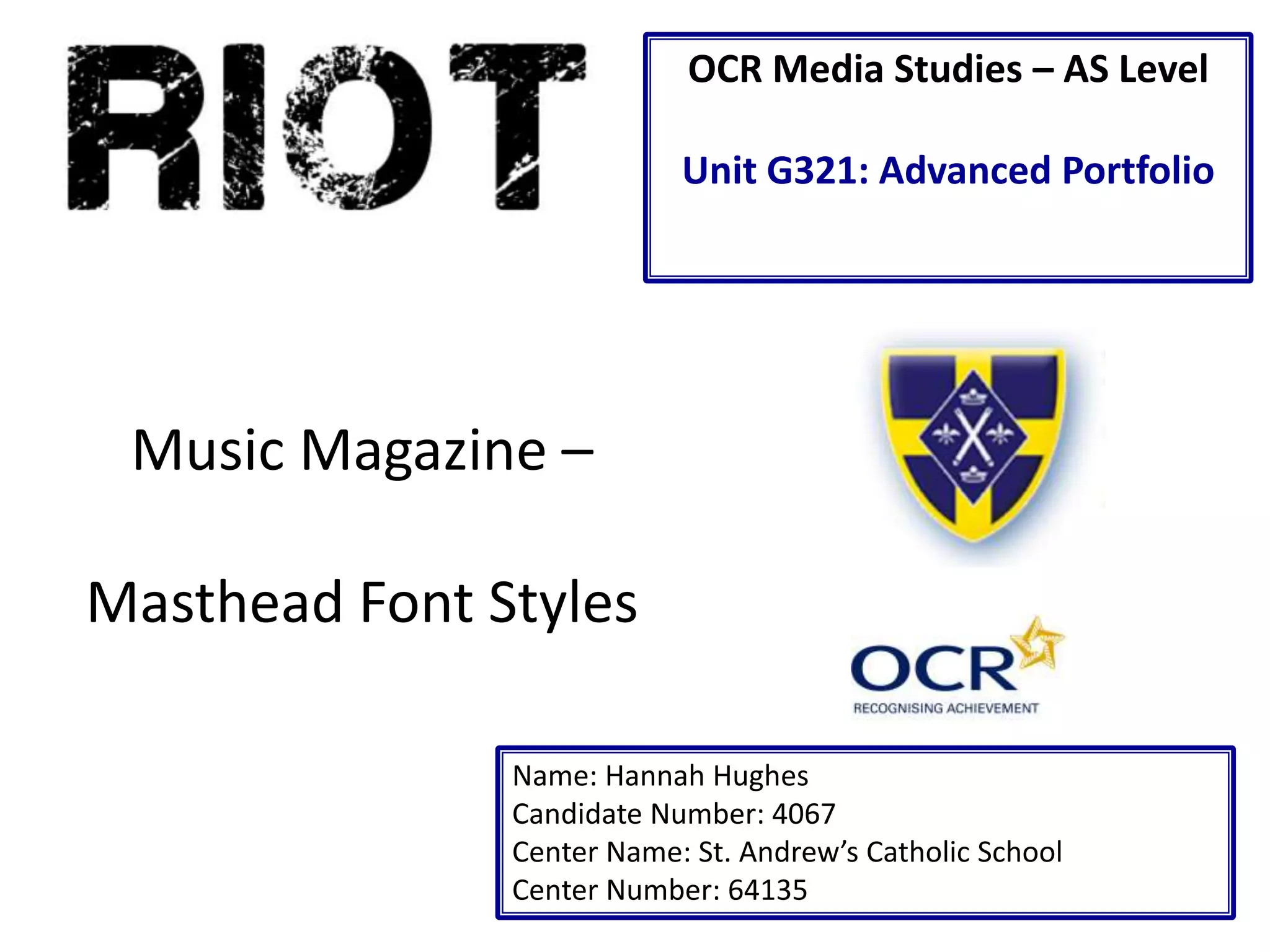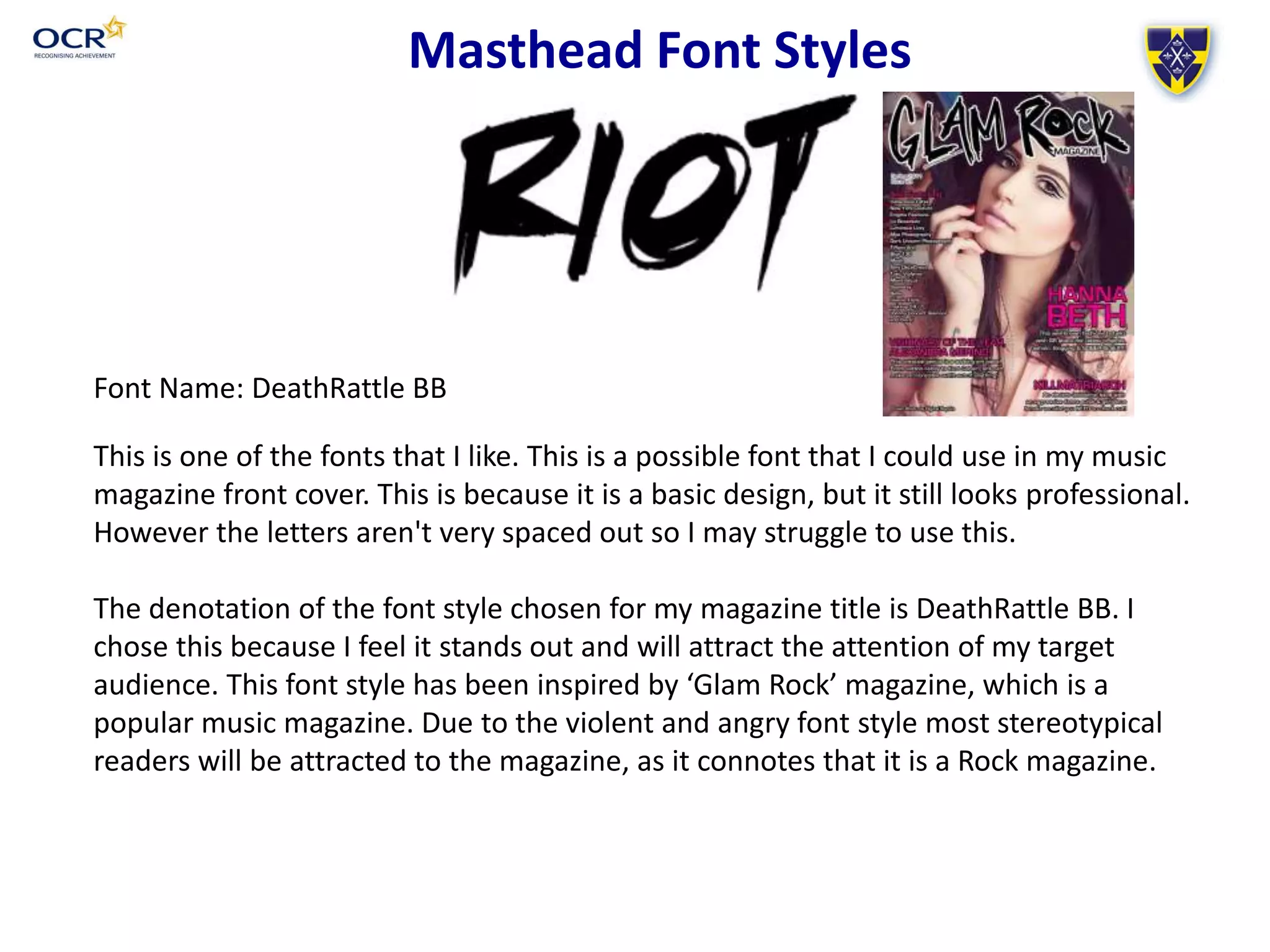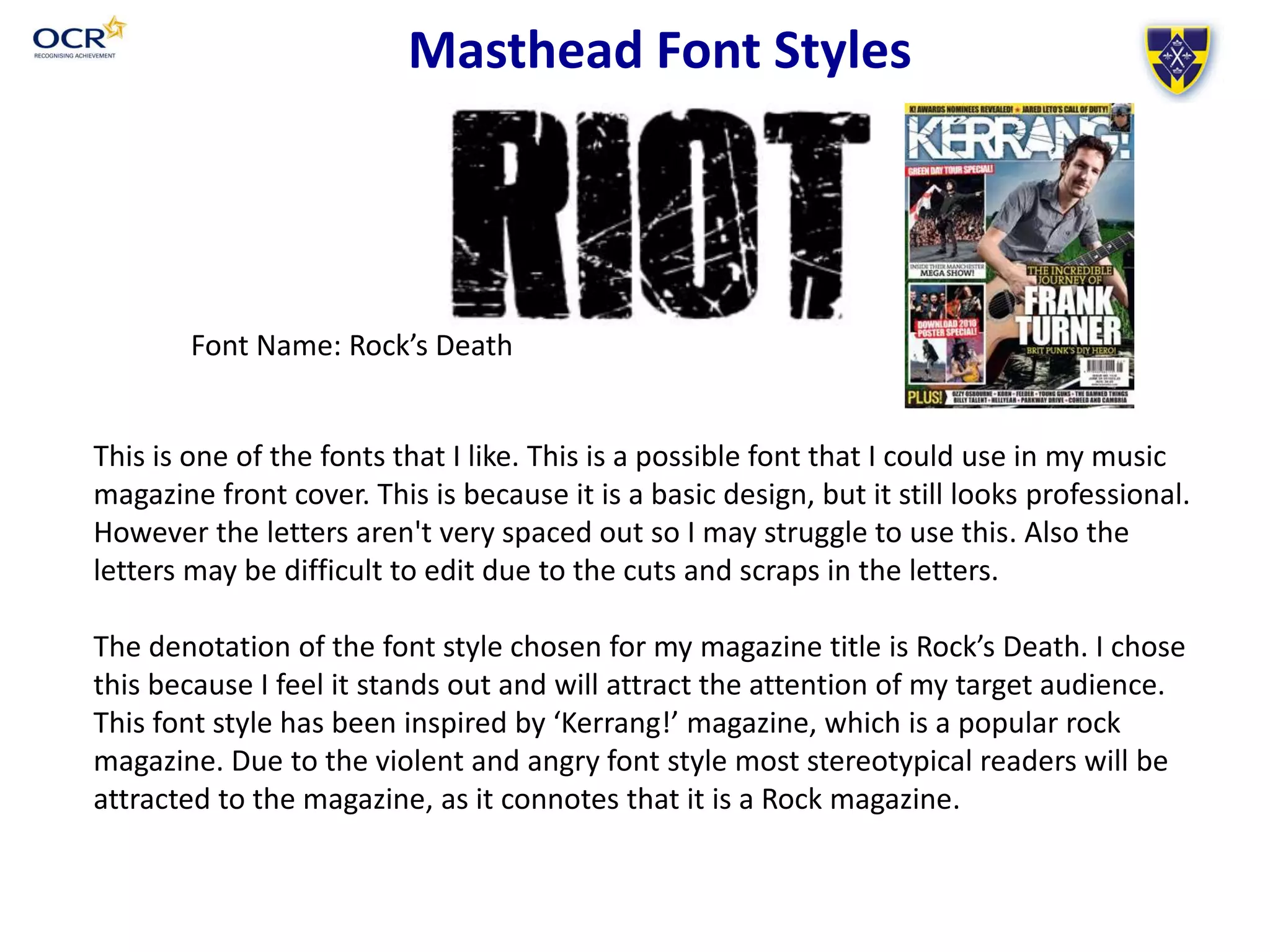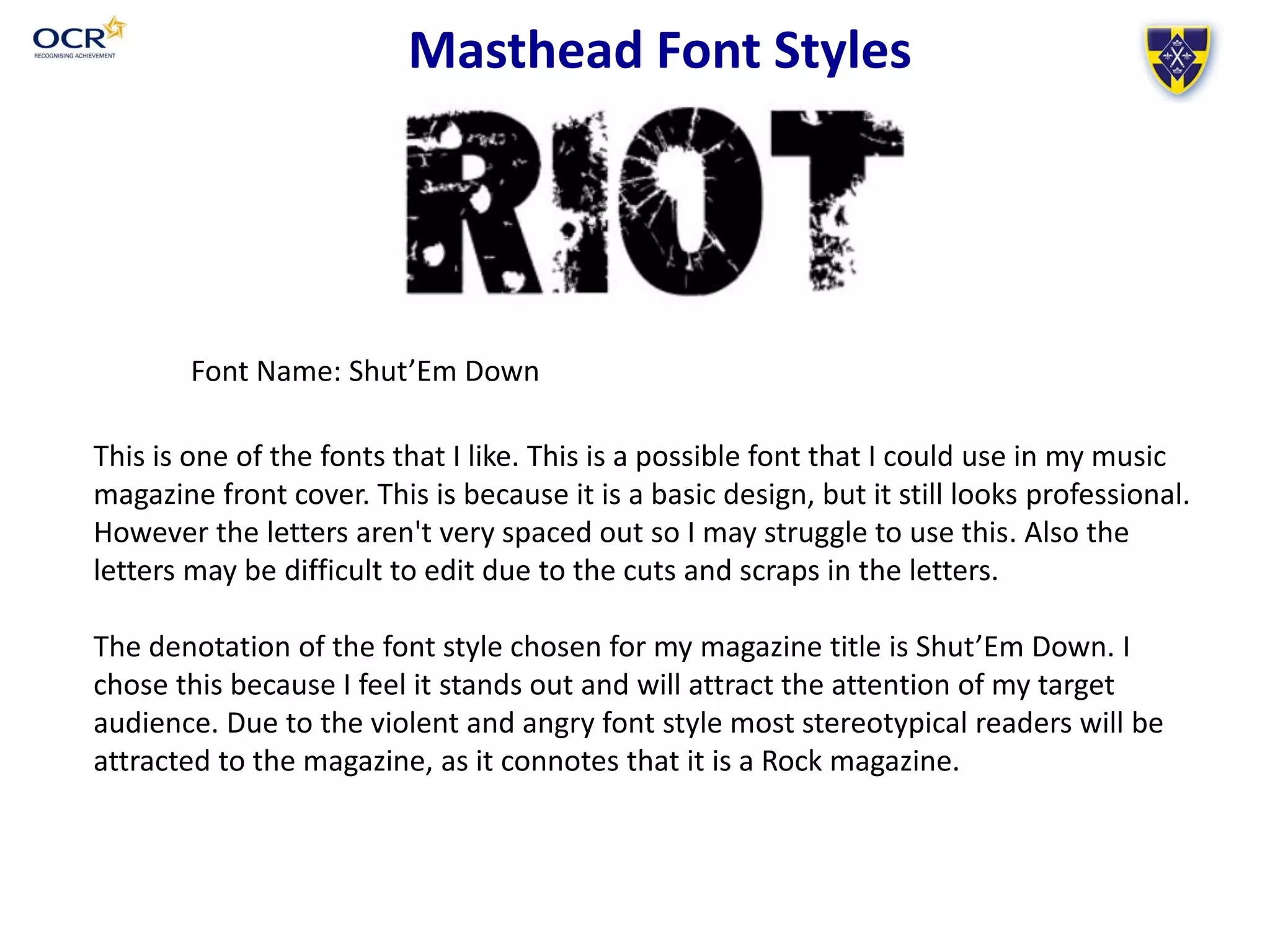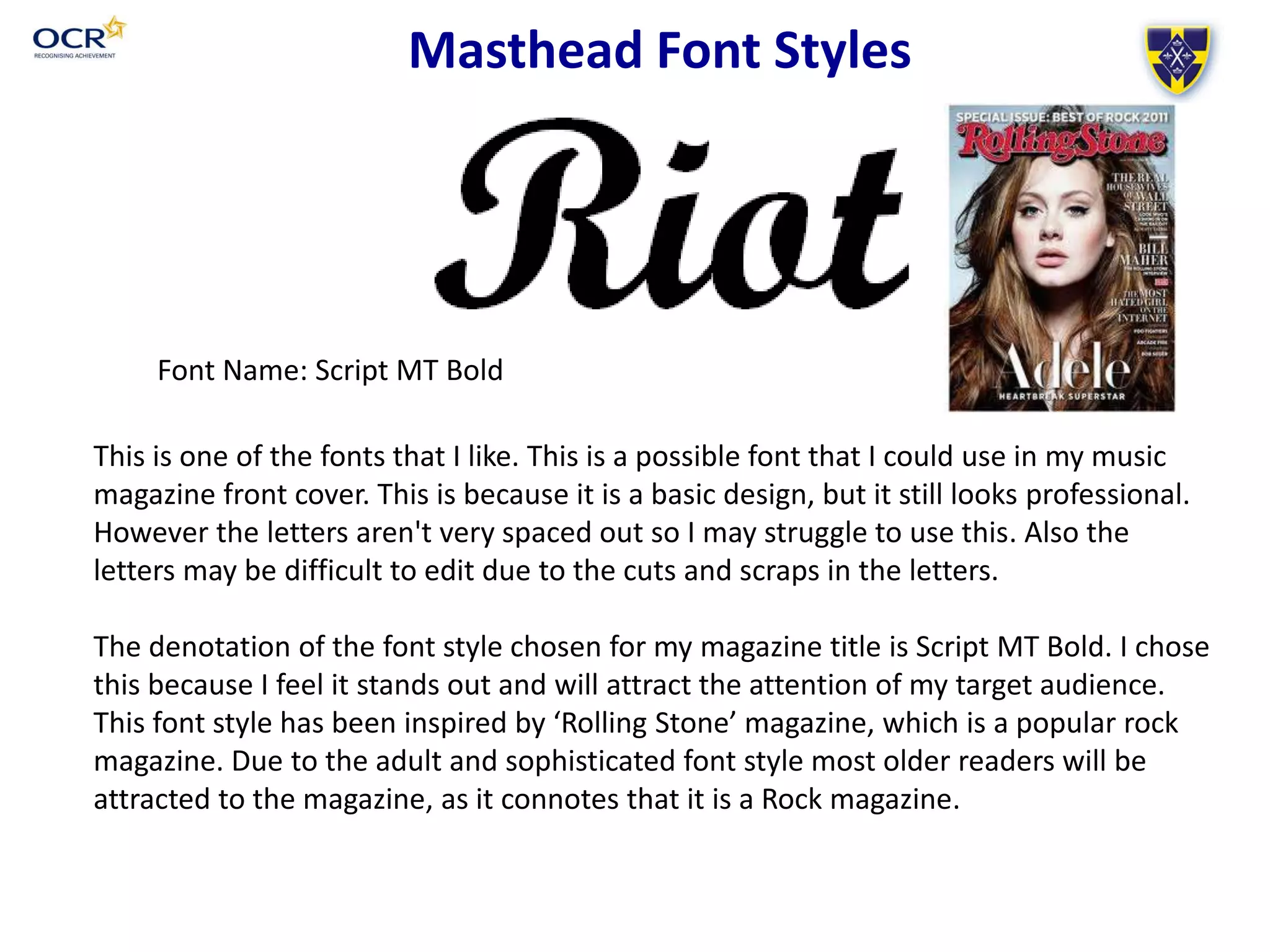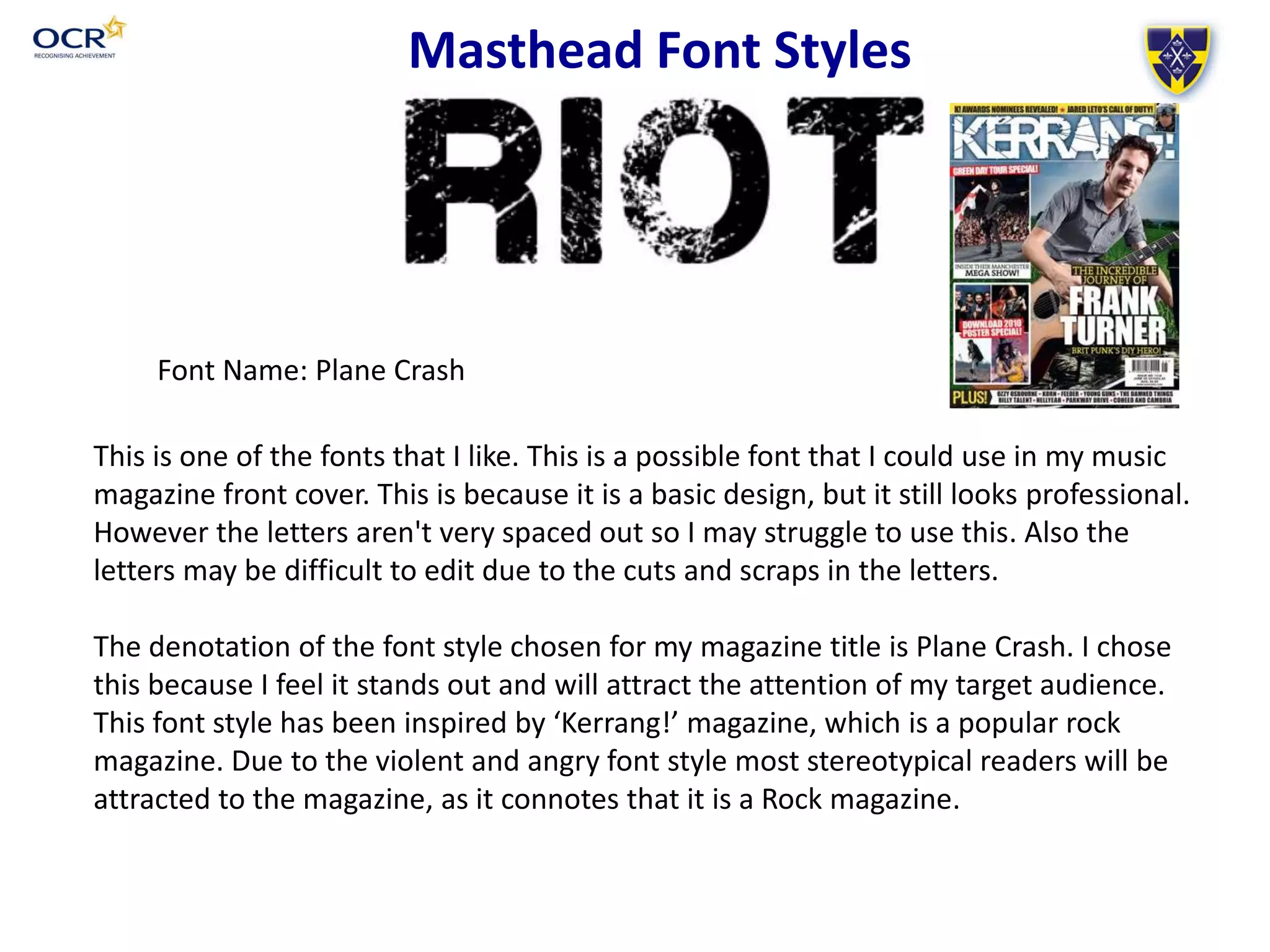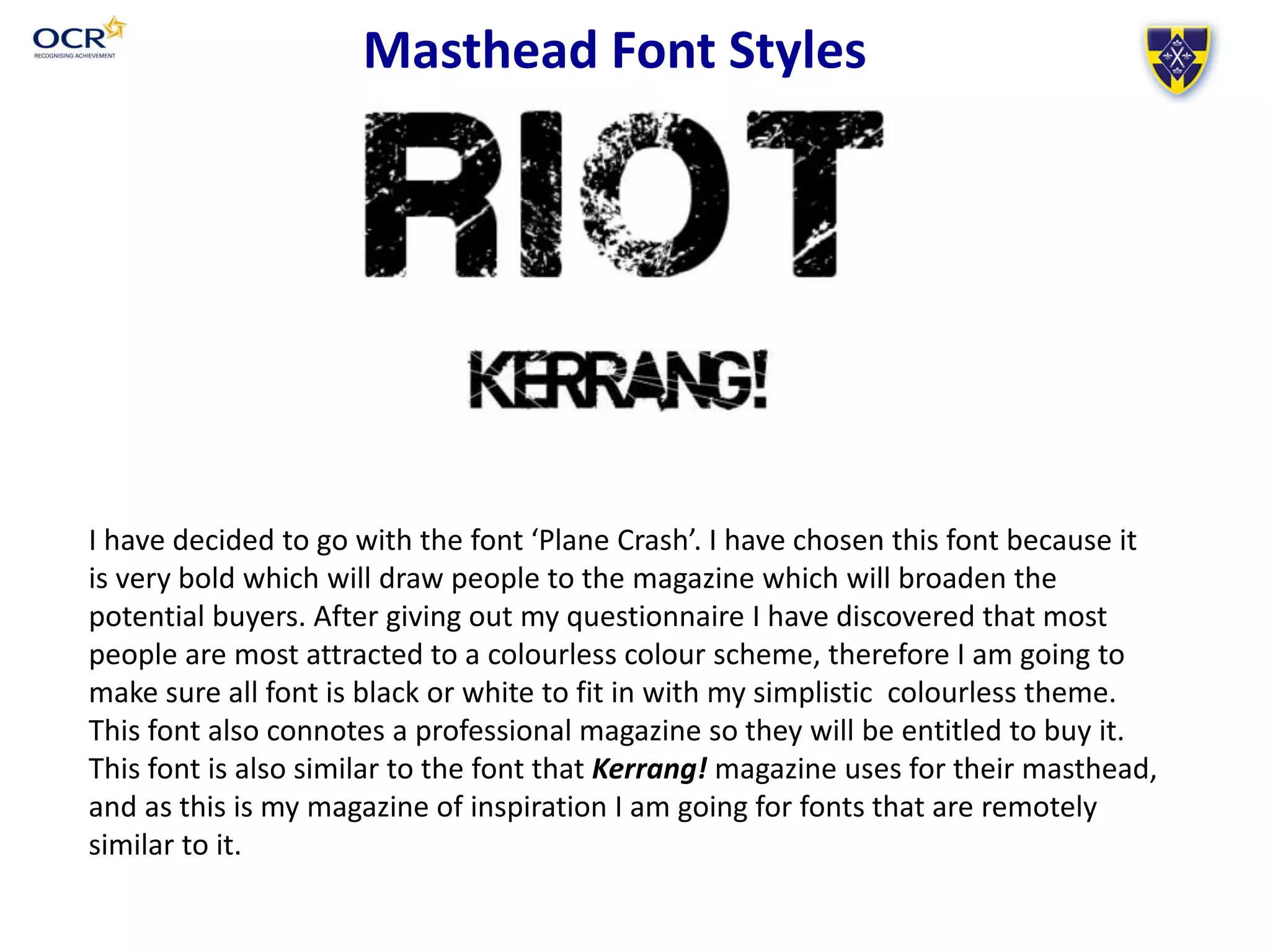
Music Magazine –
Masthead Font Styles
Font Name: DeathRattle BB
This is one of the fonts that I like. This is a possible font that I could use in my music
magazine front cover. This is because it is a basic design, but it still looks professional.
However the letters aren't very spaced out so I may struggle to use this.
The denotation of the font style chosen for my magazine title is DeathRattle BB. I
chose this because I feel it stands out and will attract the attention of my target
audience. This font style has been inspired by ‘Glam Rock’ magazine, which is a
popular music magazine. Due to the violent and angry font style most stereotypical
readers will be attracted to the magazine, as it connotes that it is a Rock magazine.
Font Name: Rock’s Death
Masthead Font Styles
This is one of the fonts that I like. This is a possible font that I could use in my music
magazine front cover. This is because it is a basic design, but it still looks professional.
However the letters aren't very spaced out so I may struggle to use this. Also the
letters may be difficult to edit due to the cuts and scraps in the letters.
The denotation of the font style chosen for my magazine title is Rock’s Death. I chose
this because I feel it stands out and will attract the attention of my target audience.
This font style has been inspired by ‘Kerrang!’ magazine, which is a popular rock
magazine. Due to the violent and angry font style most stereotypical readers will be
attracted to the magazine, as it connotes that it is a Rock magazine.
Font Name: Shut’Em Down
Masthead Font Styles
This is one of the fonts that I like. This is a possible font that I could use in my music
magazine front cover. This is because it is a basic design, but it still looks professional.
However the letters aren't very spaced out so I may struggle to use this. Also the
letters may be difficult to edit due to the cuts and scraps in the letters.
The denotation of the font style chosen for my magazine title is Shut’Em Down. I
chose this because I feel it stands out and will attract the attention of my target
audience. Due to the violent and angry font style most stereotypical readers will be
attracted to the magazine, as it connotes that it is a Rock magazine.
Font Name: Script MT Bold
Masthead Font Styles
This is one of the fonts that I like. This is a possible font that I could use in my music
magazine front cover. This is because it is a basic design, but it still looks professional.
However the letters aren't very spaced out so I may struggle to use this. Also the
letters may be difficult to edit due to the cuts and scraps in the letters.
The denotation of the font style chosen for my magazine title is Script MT Bold. I chose
this because I feel it stands out and will attract the attention of my target audience.
This font style has been inspired by ‘Rolling Stone’ magazine, which is a popular rock
magazine. Due to the adult and sophisticated font style most older readers will be
attracted to the magazine, as it connotes that it is a Rock magazine.
Masthead Font Styles
Font Name: Plane Crash
This is one of the fonts that I like. This is a possible font that I could use in my music
magazine front cover. This is because it is a basic design, but it still looks professional.
However the letters aren't very spaced out so I may struggle to use this. Also the
letters may be difficult to edit due to the cuts and scraps in the letters.
The denotation of the font style chosen for my magazine title is Plane Crash. I chose
this because I feel it stands out and will attract the attention of my target audience.
This font style has been inspired by ‘Kerrang!’ magazine, which is a popular rock
magazine. Due to the violent and angry font style most stereotypical readers will be
attracted to the magazine, as it connotes that it is a Rock magazine.
I have decided to go with the font ‘Plane Crash’. I have chosen this font because it
is very bold which will draw people to the magazine which will broaden the
potential buyers. After giving out my questionnaire I have discovered that most
people are most attracted to a colourless colour scheme, therefore I am going to
make sure all font is black or white to fit in with my simplistic colourless theme.
This font also connotes a professional magazine so they will be entitled to buy it.
This font is also similar to the font that Kerrang! magazine uses for their masthead,
and as this is my magazine of inspiration I am going for fonts that are remotely
similar to it.